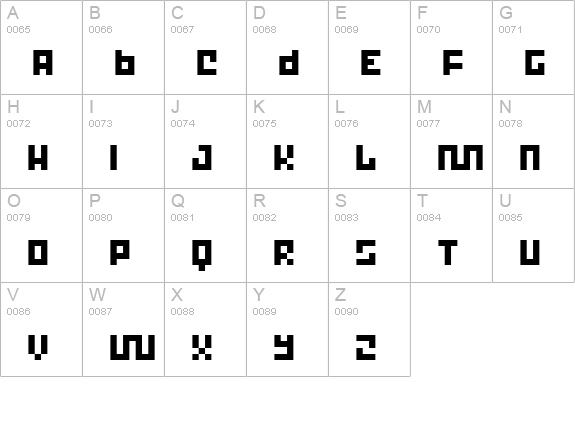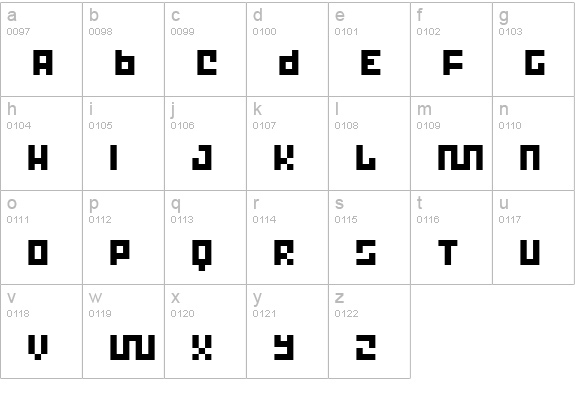
Trick font is a captivating and unique typeface that will add a touch of playfulness and creativity to your designs. With its quirky and whimsical letterforms, this font is perfect for adding a dose of fun to your projects. Whether you're designing a party invitation, a children's book cover, or a vibrant poster, Trick font will make your text stand out and grab attention. What makes Trick font even more appealing is that it is completely free! Yes, you read that right. This incredible font is freely available to download exclusively at FontsMarket.com. Say goodbye to expensive font purchases and hello to endless possibilities with Trick font. Not only does Trick font offer a wide range of character variations and ligatures, but it also features impeccable spacing and kerning, ensuring that your text looks polished and professional. The letters flow seamlessly together, creating a visually pleasing and harmonious look. Whether you're a seasoned designer or just starting out, Trick font is incredibly user-friendly and easy to work with. It is compatible with various design software and can be used on both Mac and PC platforms. So, even if you're a beginner, you can dive right into creating eye-catching designs with Trick font. So, what are you waiting for? Don't miss out on this amazing opportunity to download Trick font for free at FontsMarket.com. Add a touch of magic and whimsy to your designs with this captivating typeface. Let your creativity soar and make a statement with Trick font.